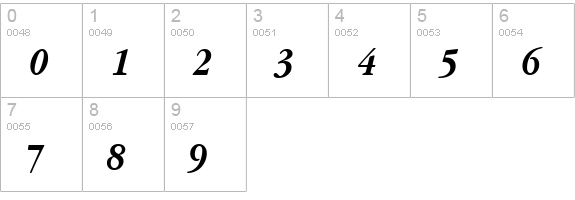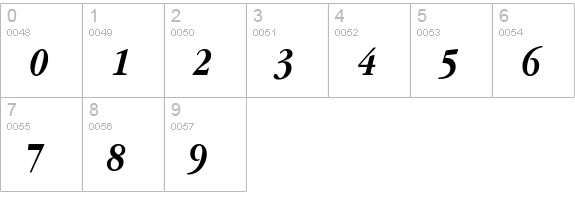
Apple Garamond Bold Italic BT Font Details
Apple Garamond Bold Italic BT is a strong, high-contrast, italic variant in the Apple typeface family \xE2\x80\x94 well suited to headlines, attention-grabbing titles, and strong calls-to-action.
Apple Garamond Bold Italic BT is a timeless and elegant font that exudes sophistication and class. With its bold strokes and graceful italics, this typeface commands attention and adds a touch of luxury to any design project. Whether you are creating a stylish logo, a sleek brochure, or a refined invitation, Apple Garamond Bold Italic BT is sure to make a lasting impression. The best part? This exquisite font is available for free download at FontsMarket.com. Now you can easily access this premium typeface and elevate your designs without breaking the bank. Don't miss out on the opportunity to enhance your creations with the beauty and versatility of Apple Garamond Bold Italic BT. Download it today and experience the luxury of this stunning font at your fingertips.